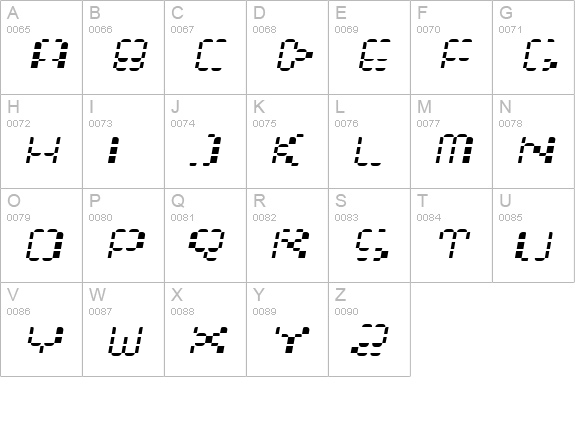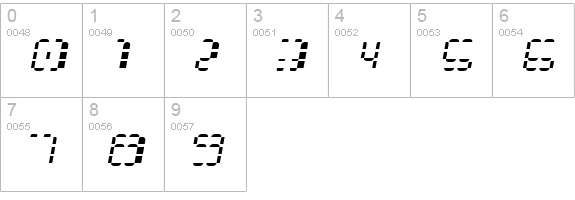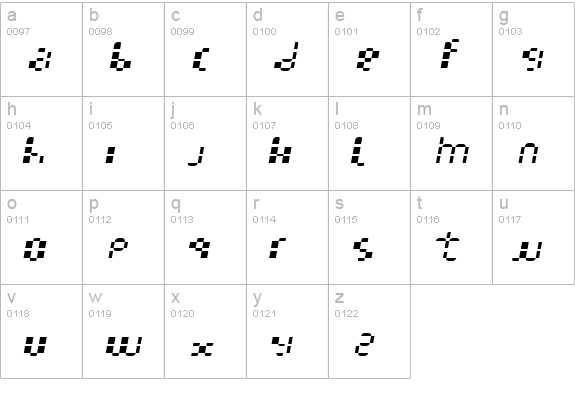
Multihora Font Details
Introducing Multihora font - a beautifully crafted typeface that exudes elegance and sophistication. This versatile font is perfect for a wide range of design projects, from branding to editorial design. With its modern yet timeless design, Multihora is sure to make your work stand out. The best part? Multihora font is completely free to download at FontsMarket.com. Yes, you read that right - you can get your hands on this stunning font without spending a dime. So why wait? Elevate your designs with Multihora font today and let your creativity soar.